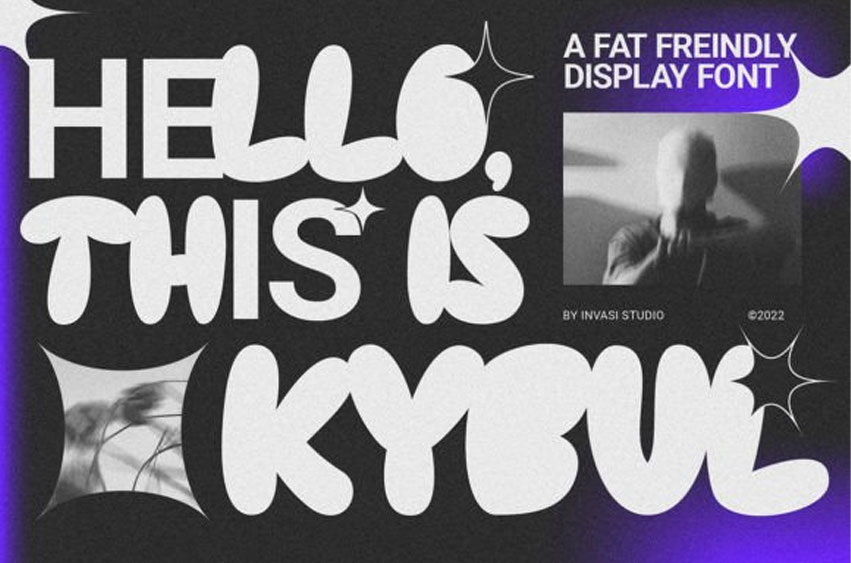
Kybul Font is a bubbly, sweet display font with a cutoff letterform. Kybul takes another step and brings the bubbly into a casual style.
Perfect for use in big sizes on posters or flyers. Its imperfections keep it casual while still providing legibility.